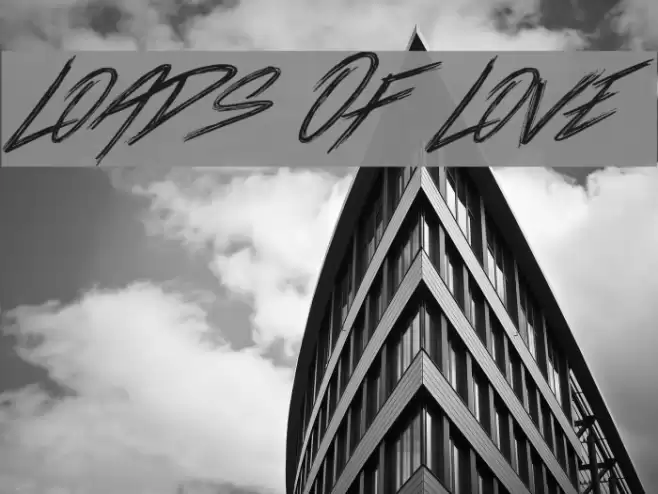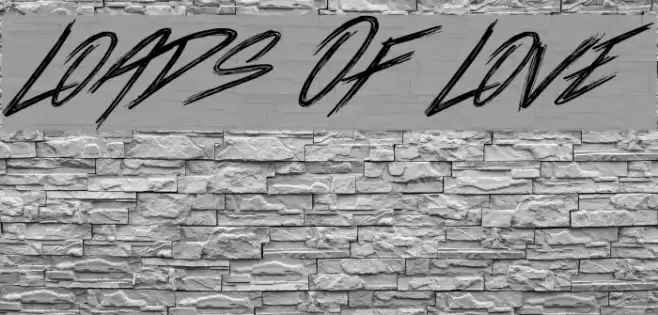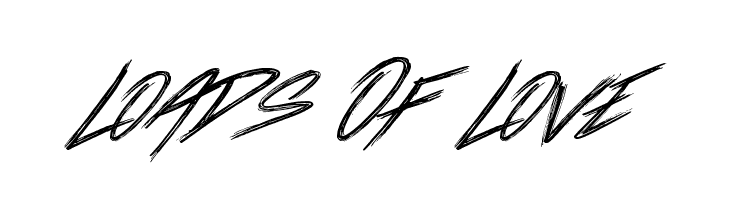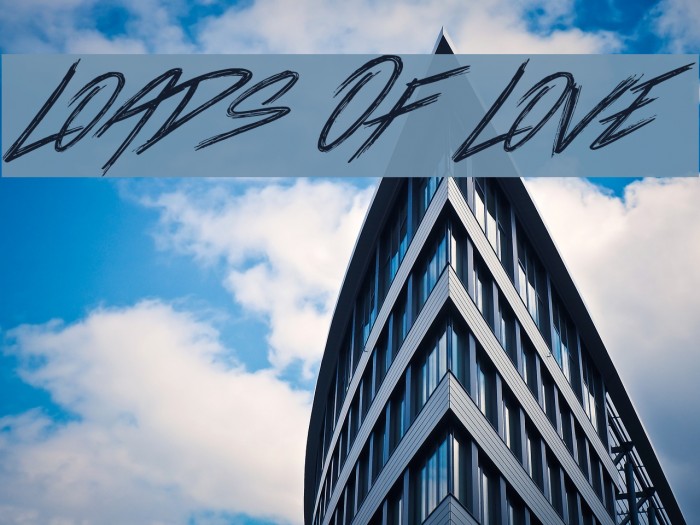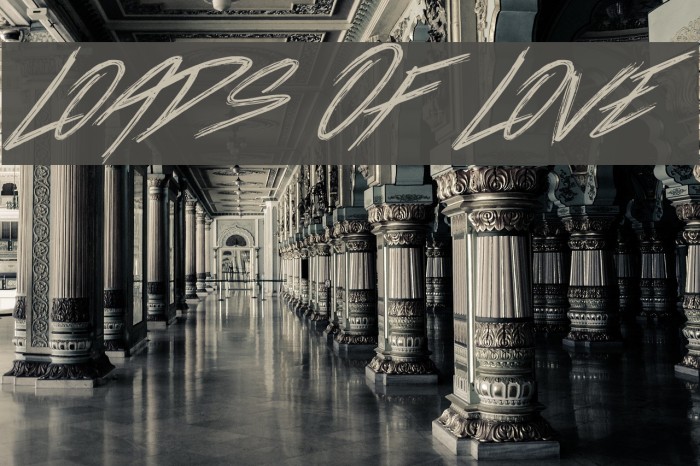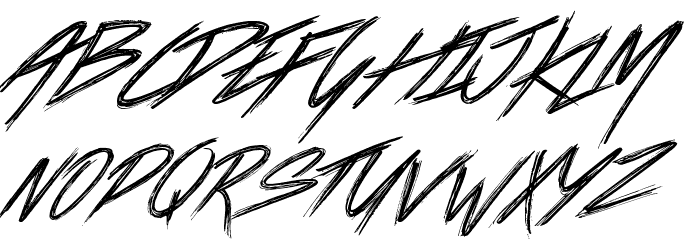
Loads Of Love Font
Loads Of Love Description
This font features a dynamic and edgy script style with a hand-drawn appearance. The letters are characterized by sharp, angular strokes and a sense of movement, giving it a rebellious and energetic feel. The uppercase and lowercase letters maintain a consistent style, with varying stroke thickness that adds to its raw and expressive nature. This font is ideal for projects that require a bold and impactful statement, such as posters, album covers, or branding for edgy and modern brands.
A dynamic, edgy script font with sharp, angular strokes and a hand-drawn appearance from Uncategorized fonts.
- Proposed Projects: Ideal for posters, album covers, and branding for edgy, modern brands.
- Character Spacing: Tight